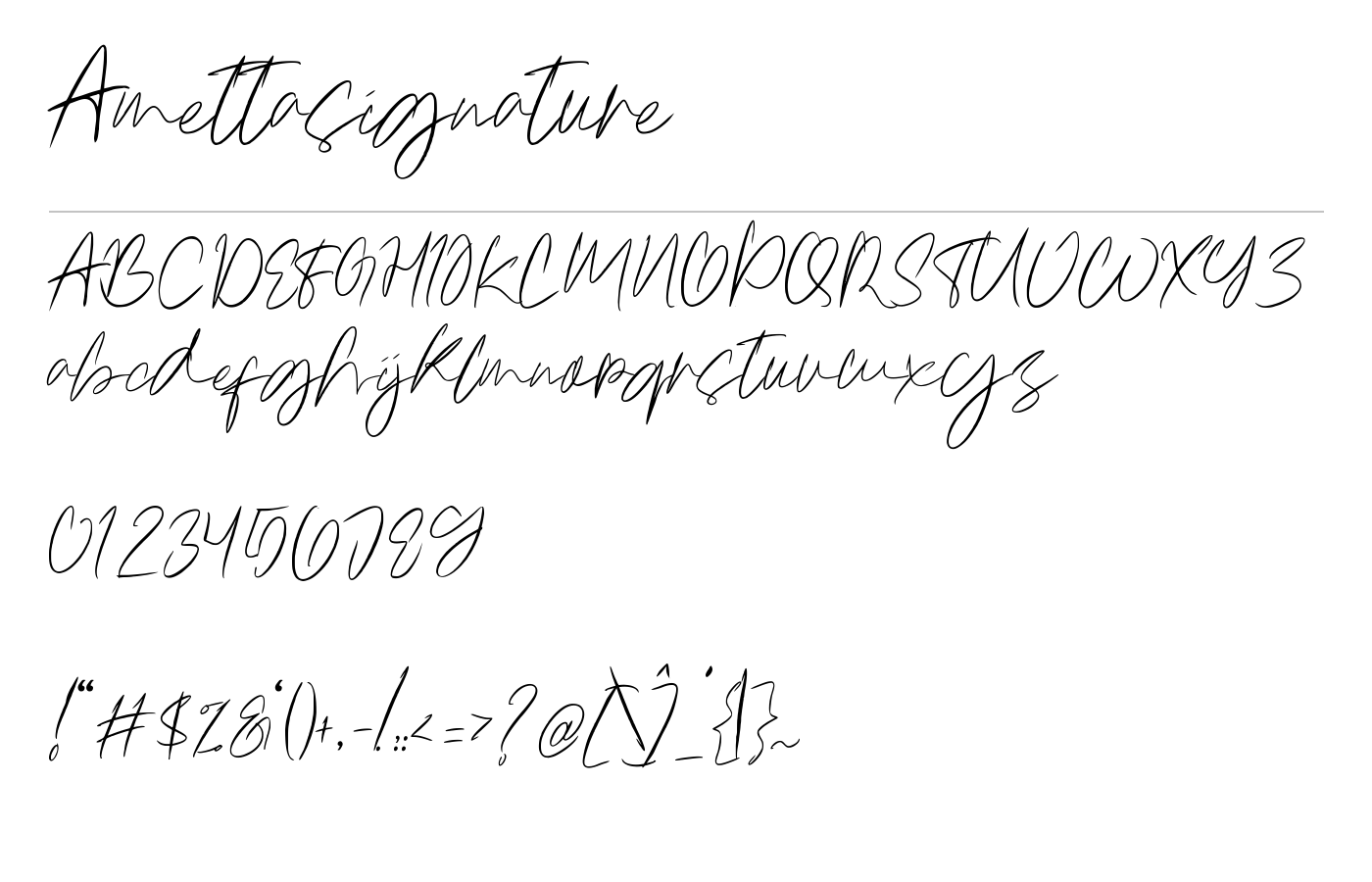
Amettasignature is a delicate, handwritten script font that exudes elegance and personal charm with its fine, flowing strokes and natural, casual style. Its light weight and airy spacing make it perfect for adding a sophisticated yet approachable touch to branding, invitations, and creative projects where a stylish, authentic signature feel is desired. This font works beautifully in designs aiming for a modern, artistic vibe that is both refined and expressive.
Amettasignature Font
About Amettasignature Font